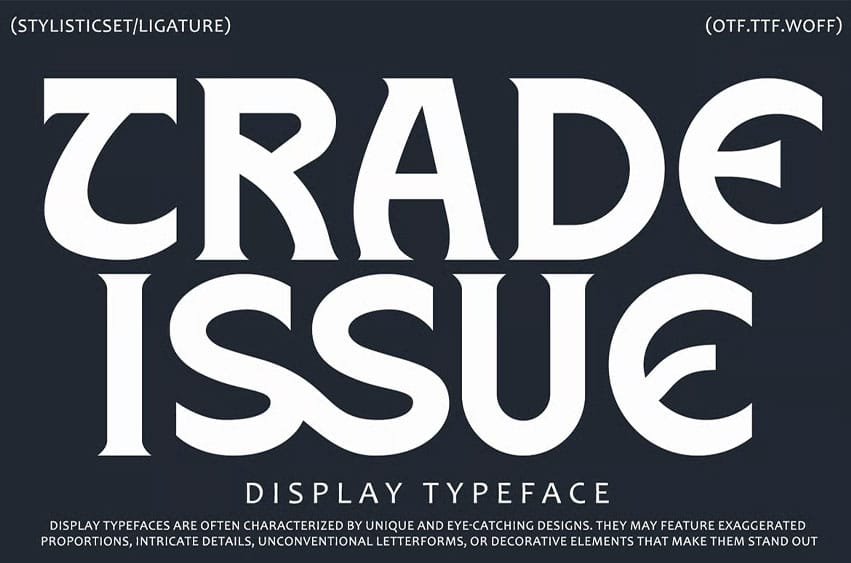
Trade Issue Font is a bold and modern display typeface with strong proportions and striking details. Its unique letterforms and stylistic ligatures make it perfect for projects that need to stand out, from editorial titles and posters to branding, packaging, and digital graphics.
With its contemporary yet timeless design, Trade Issue delivers versatility and impact in both print and digital formats. It also includes stylistic sets, ligatures, and multilingual support, ensuring your typography adapts seamlessly to global creative projects.